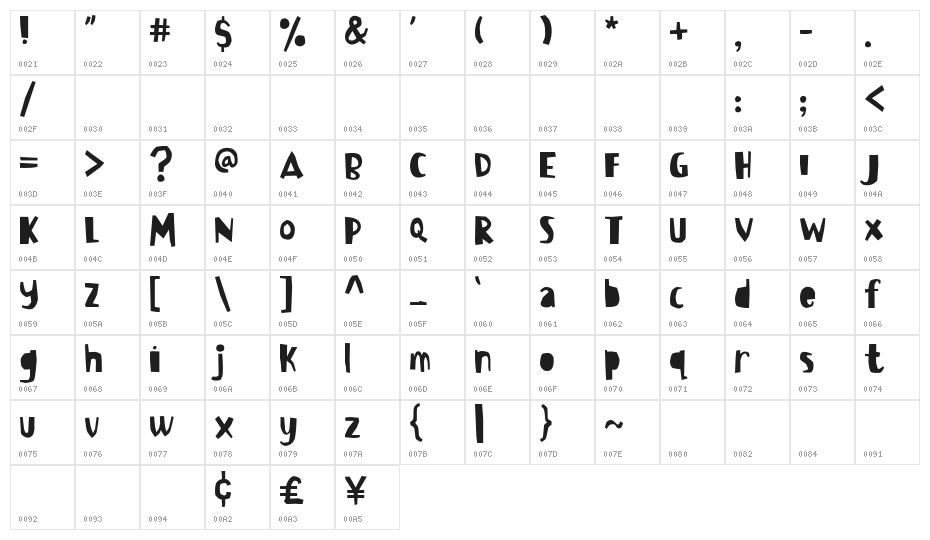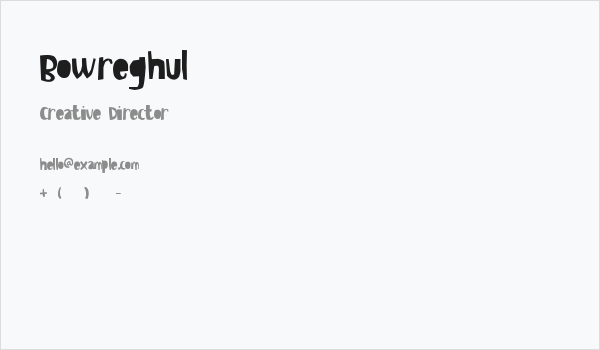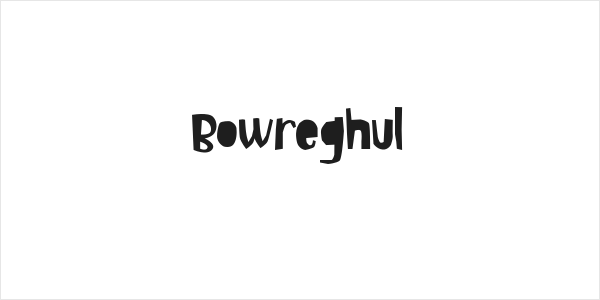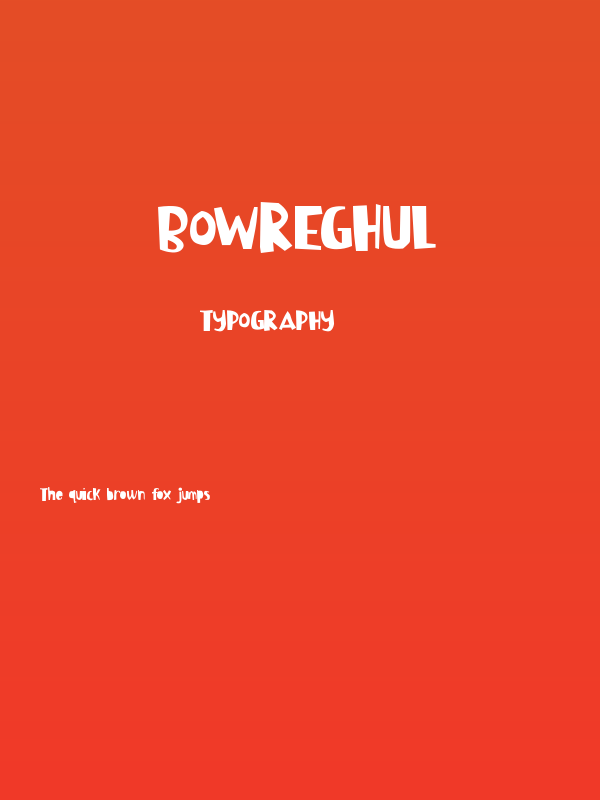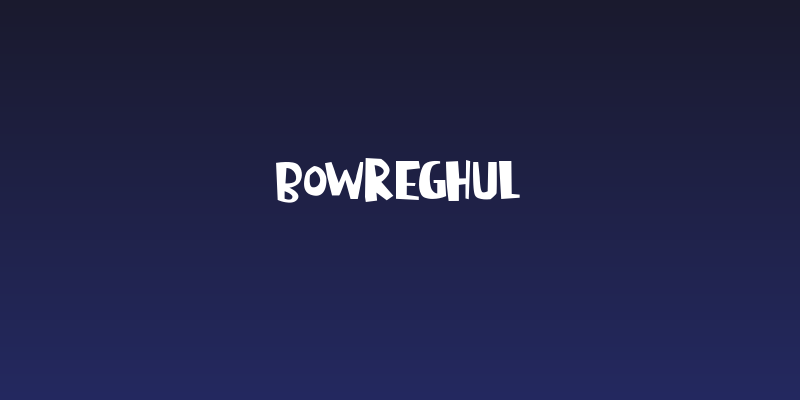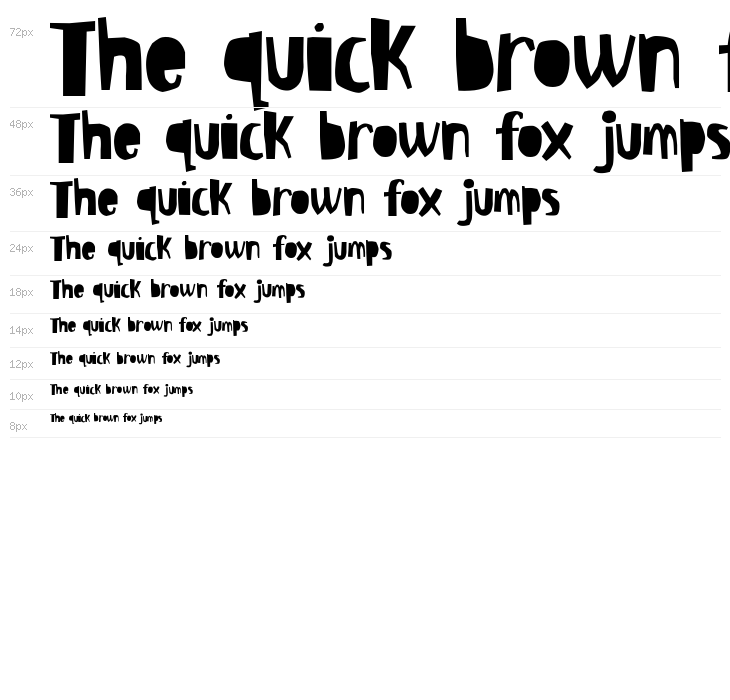
Bowreghul Font
Bowreghul Description
This font features a playful and bold design with irregular, hand-drawn characteristics. The uppercase letters are large and commanding, while the lowercase letters maintain a whimsical and informal style. The strokes are thick and uneven, giving it a unique and artistic flair. The special characters and numbers follow the same bold and quirky design, making the font suitable for creative and informal projects. Its distinctive style makes it stand out, perfect for grabbing attention.
| Overall Style | Playful, Artistic, Quirky |
| Proposed Projects | Ideal for children's books, playful branding, posters, and creative invitations. |